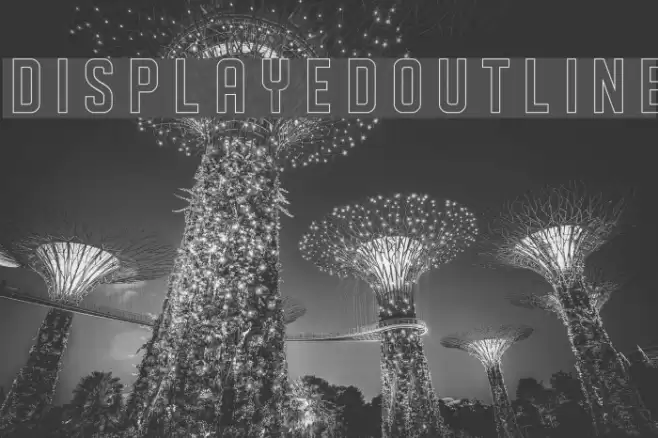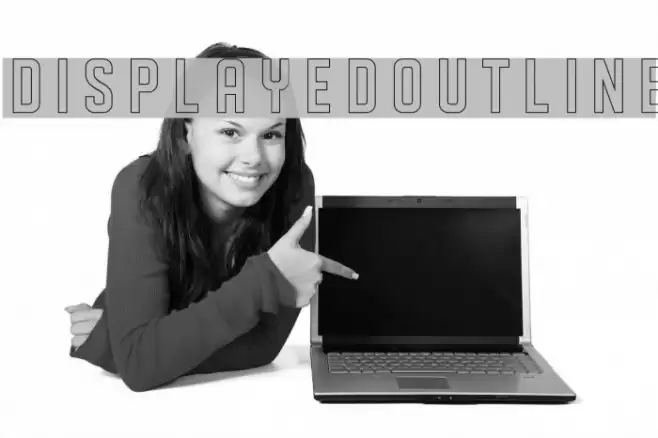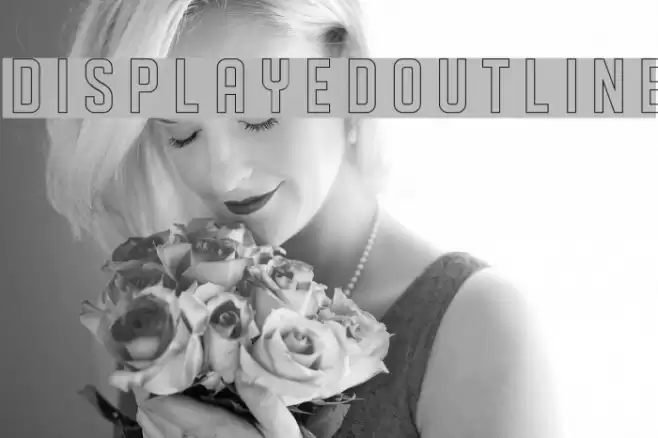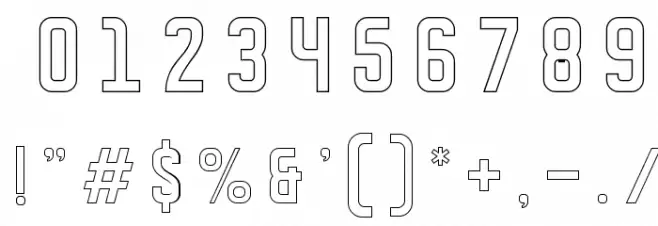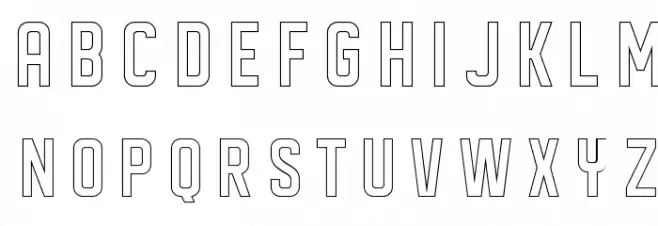
DISPLAYEDoutline Font
DISPLAYEDoutline Description
This font features a clean, geometric outline style with uniform stroke widths, giving it a modern and industrial appearance. The uppercase letters are bold and structured, with sharp angles and straight lines that create a sense of precision and clarity. The lowercase letters maintain the same geometric style, ensuring consistency across all characters. Numbers are equally bold and clear, making them easily readable. The special characters are designed to match the overall aesthetic, with a focus on simplicity and functionality. This font's outline design allows it to stand out without overwhelming the viewer, making it suitable for a variety of applications.
A modern, geometric outline font with bold, structured characters from Uncategorized fonts.
- Proposed Projects: Ideal for branding, signage, posters, and any project requiring a modern, industrial look.